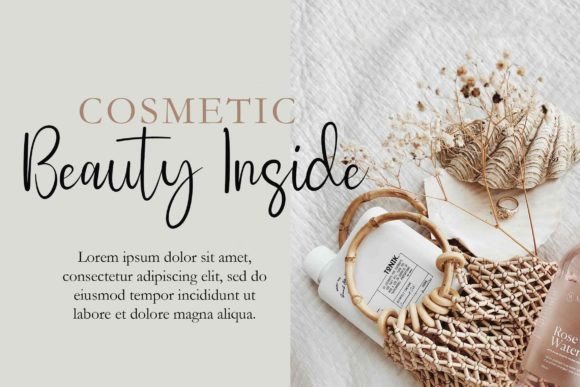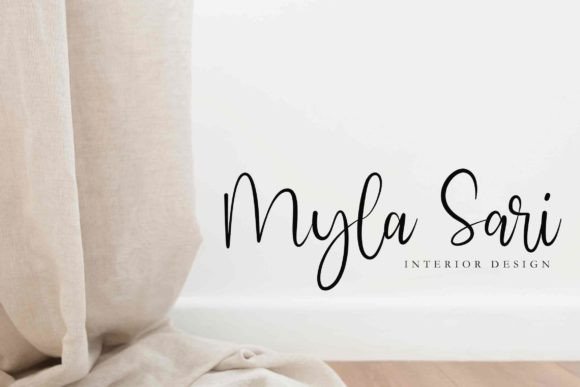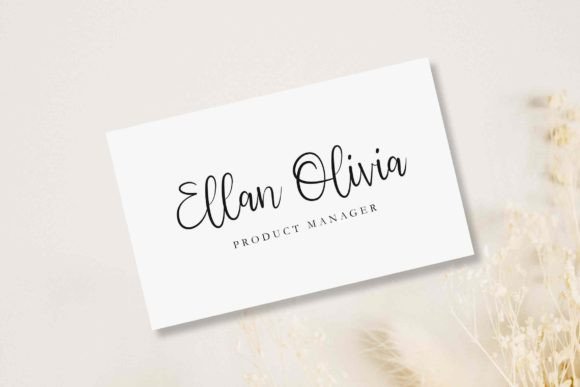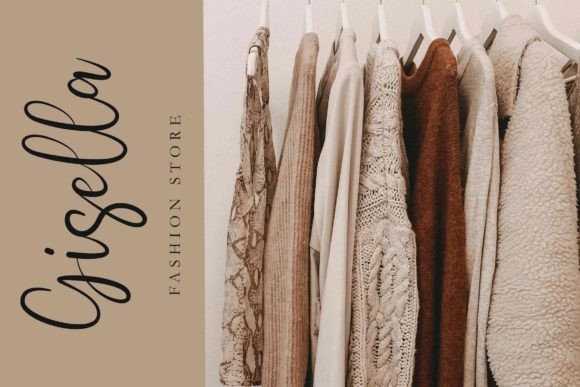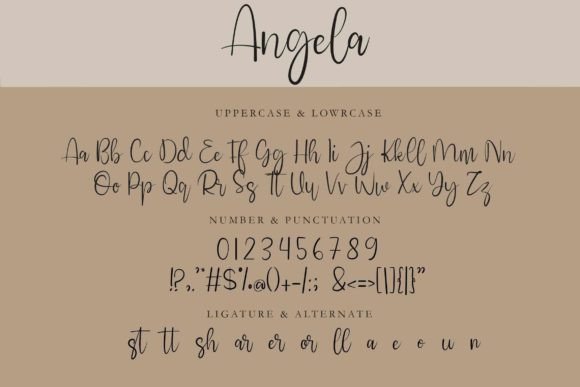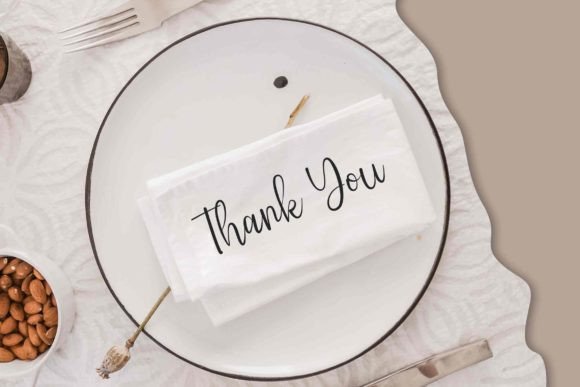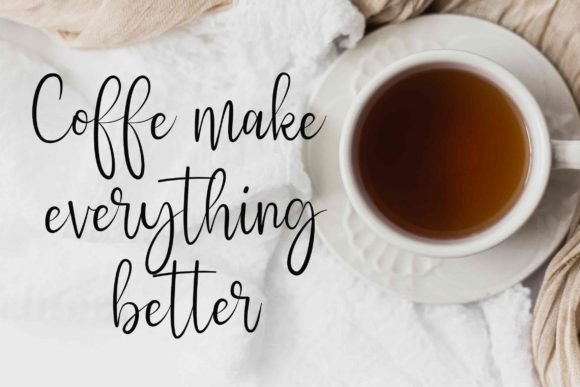
Angela Font
About Angela Font
Angela Font Download presents a naturally flowing handwritten typeface designed to add elegance and personality to your creative projects. Inspired by artistic expression, this font captures the smooth rhythm of calligraphy with a refined and modern touch. Whether you’re working on logos, wedding invitations, apparel design, or thoughtful quotes, Angela provides a graceful and heartfelt visual tone.
The font’s sweeping curves and balanced structure bring charm to your typography while remaining highly functional across various platforms.
Naturally Flowing and Elegantly Designed
Angela is more than just a beautiful handwritten font—it is a translation of imagination into form. The letters are thoughtfully drawn to simulate authentic pen strokes with a clean, contemporary edge. As a result, each glyph flows seamlessly, producing cohesive and visually appealing text.
This font is ideal for:
• Wedding invitations and romantic stationery
• Boutique branding and custom logos
• Instagram quotes and Pinterest graphics
• Journals, planners, and creative printables
• Product packaging and handmade tags
Its adaptable nature allows it to feel romantic, relaxed, or refined—depending on your design vision.
Includes Alternates, Ligatures, and Full Character Set
Angela Font includes uppercase and lowercase letters, numerals, punctuation, and multilingual support. In addition, it comes with ligatures and stylistic alternates that help you create a more customized, artistic look.
Perfect for Digital and Print Designs
What sets Angela apart is its versatility. You can use it in both print and digital applications without sacrificing clarity or elegance. Whether you’re designing a wedding menu, a blog header, or a personalized T-shirt, Angela maintains its charm and readability.
Use it as a standalone display font or pair it with a clean serif or sans-serif to create layered, expressive typography. From luxury branding to casual content, this font enhances any project.